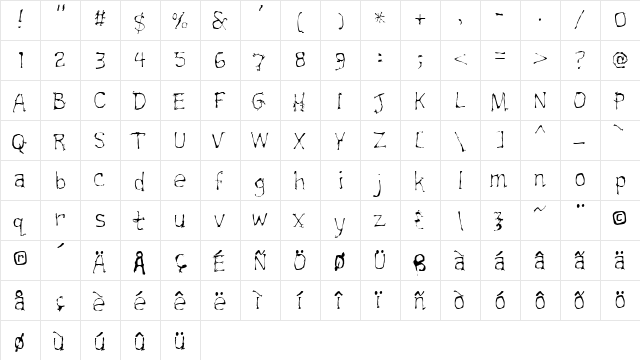
TrainwreckLite Regular Font Preview
TrainwreckLite Regular
Design Context for TrainwreckLite Typeface
TrainwreckLite is a composed and adaptable typeface that performs quietly and consistently across a wide range of design contexts.